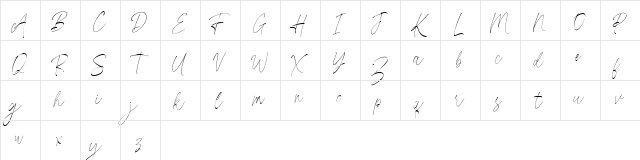
Rosiecated Script
| Style | Script |
| Foundry | Sizimon |
| Designer | Faisal Tanjung |
Design Context for Rosiecated Typeface
Rosiecated brings a calligraphic fluidity to the page — its connecting strokes and expressive curves give it an unmistakably human quality.
Font Pairing: Combine Rosiecated with a simple geometric sans for maximum contrast — the tension between flowing curves and clean structure is a classic typographic pairing.
Pro Tip: Use Rosiecated for short runs of text — names, titles, or taglines. Extended body copy in script faces tires the eye quickly.